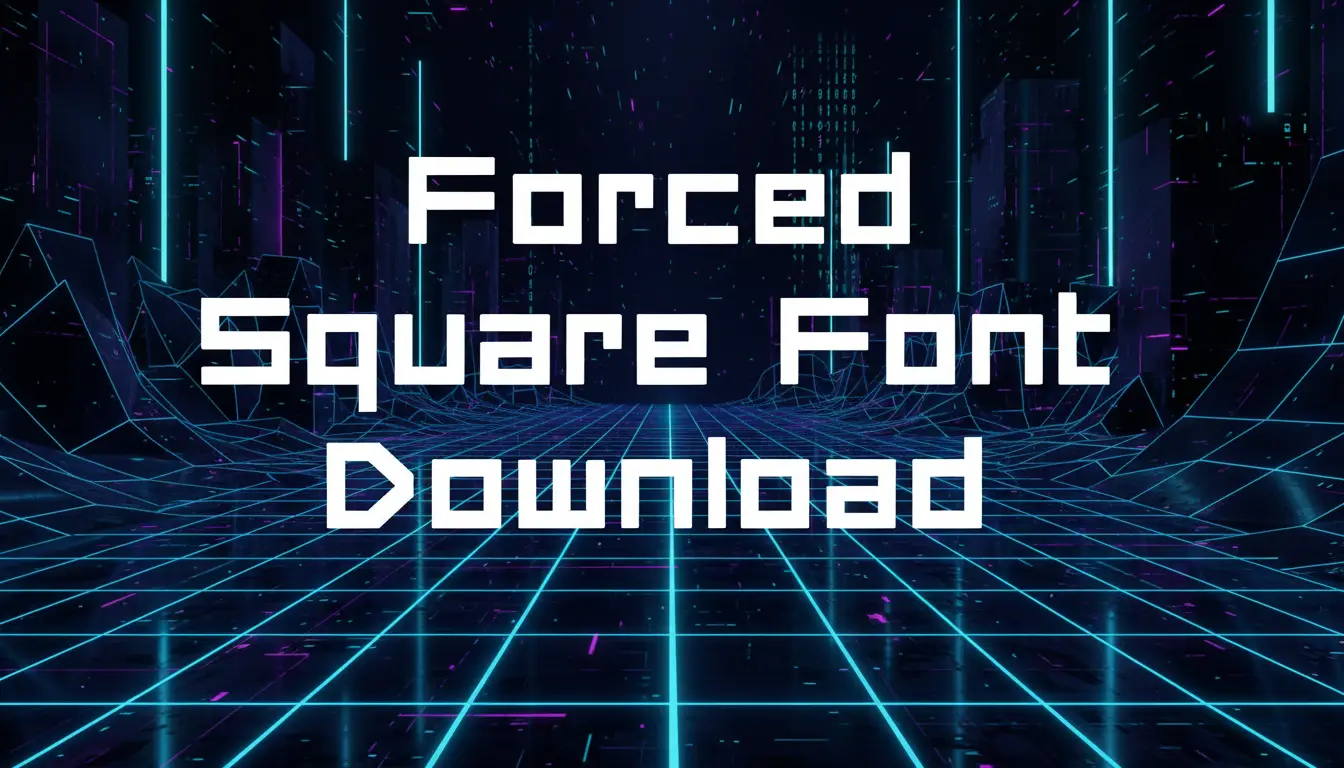
Forced Square Font
Forced Square
Forced Square is a techno font created by Paul IJsendoorn and released through Paul IJsendoorn – Drawperfect. Its angular, engineered shapes look right at home on screens and tech products. You can download it for free and test it with your own words in the preview above.
What You Can Type With Forced Square
Forced Square covers the full alphabet in upper and lowercase, plus all ten numbers, so you can set names, dates and prices without switching fonts. Everyday marks like &, !, ? and @ are there too. Thanks to its accented letters, it also works for Spanish, French, German, Portuguese and Italian, not just English.
Where Forced Square Works Best
Think of Forced Square for gaming logos, tech branding and futuristic posters. Try it on a dark background with a bright accent color for a sharp, modern look.
Does Forced Square support accented letters?
Yes. Forced Square includes the accented letters needed for Spanish, French, German, Portuguese and Italian, so it works for more than just English.
What fonts pair well with Forced Square?
A simple sans serif like Roboto keeps longer text easy to read next to it.